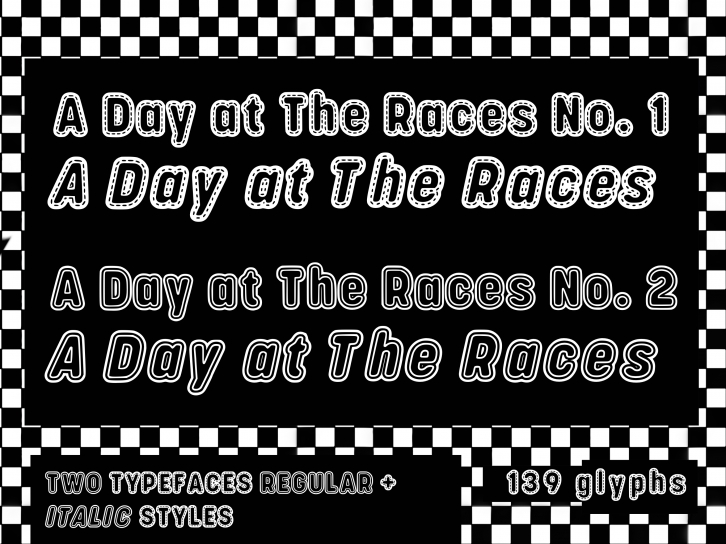
A Day At The Races is a cool and vintage styled display font. It is suitable for any branding project like logos, t-shirt printing, sport designs, and more. It will look outstanding in a wide range of contexts.